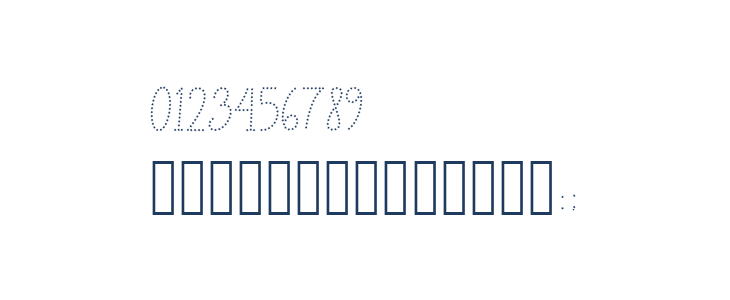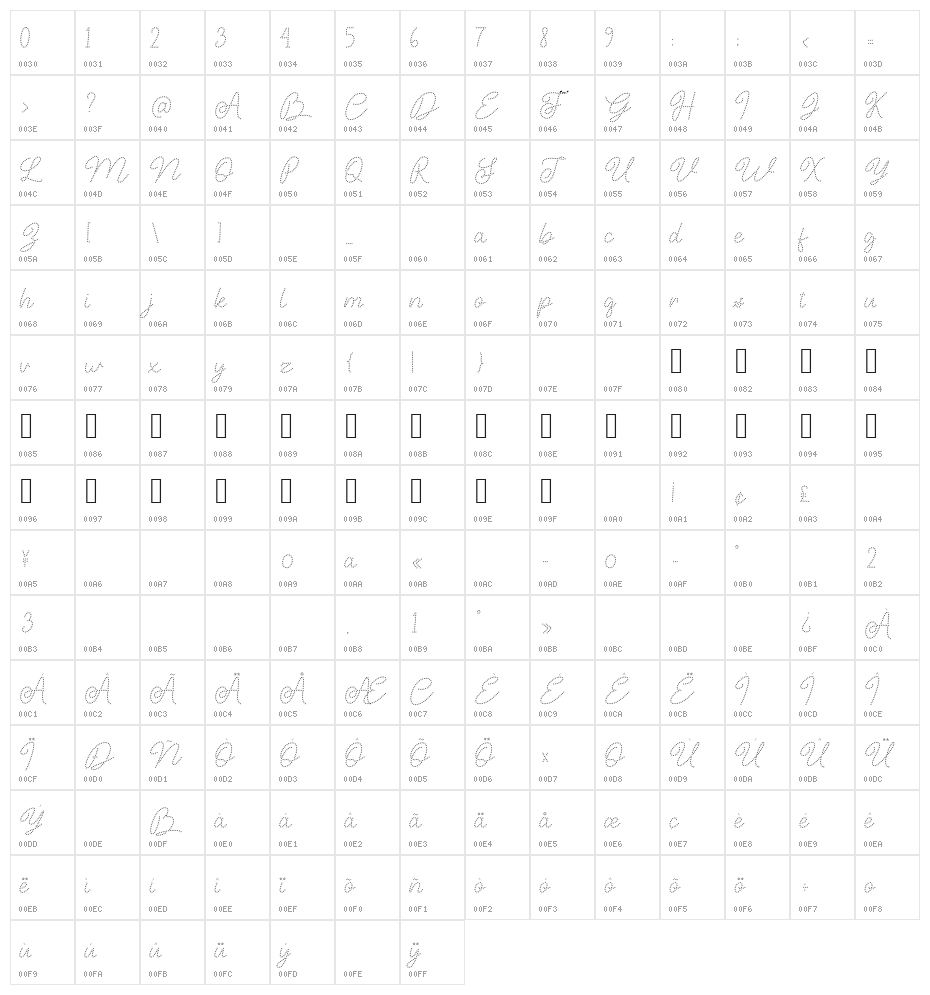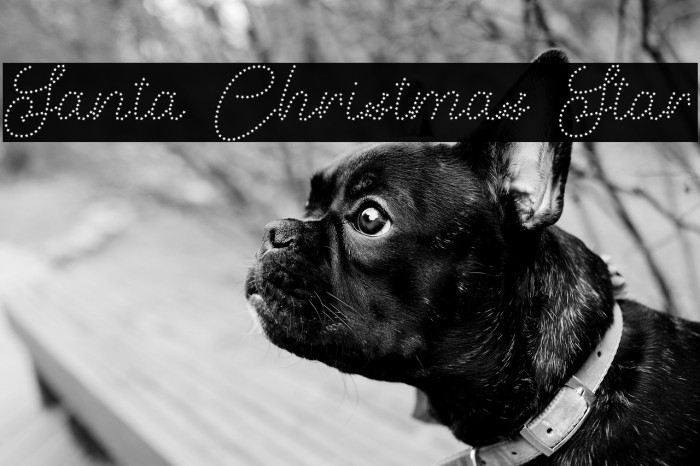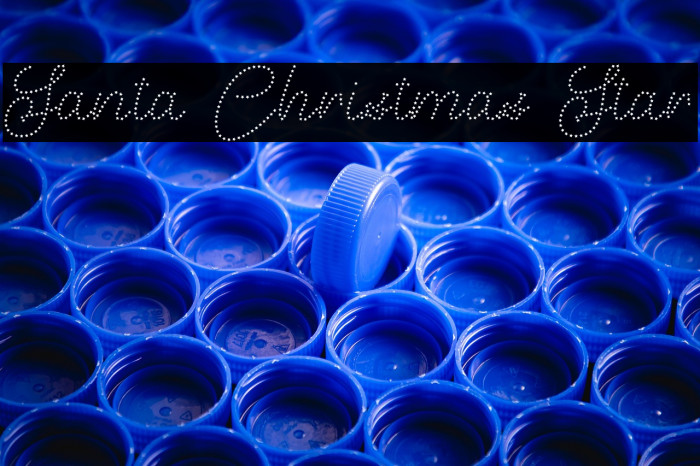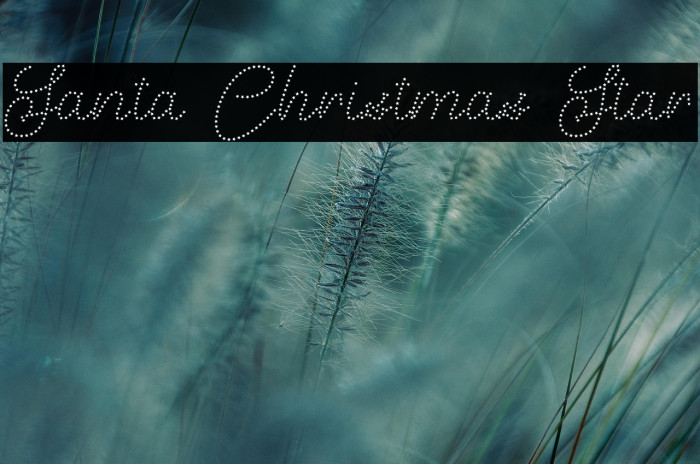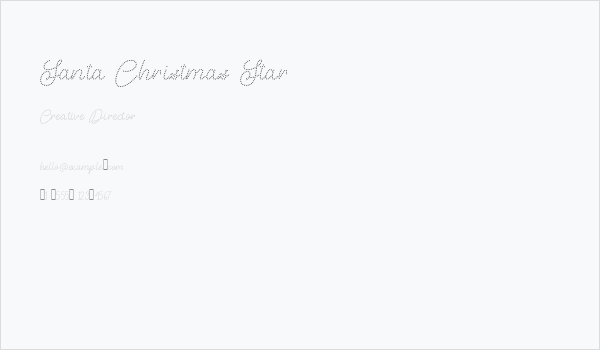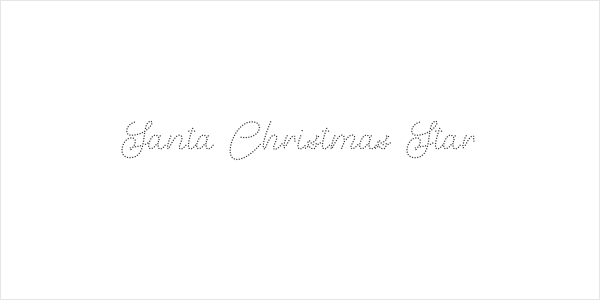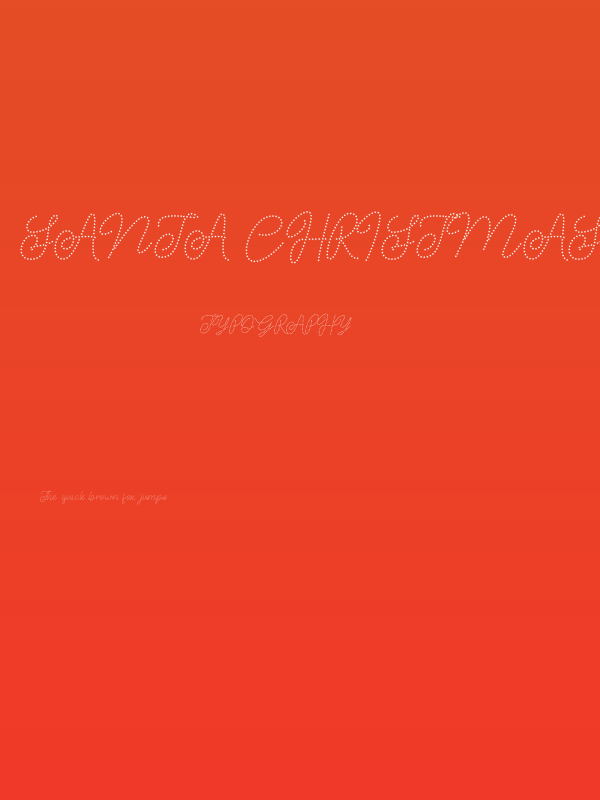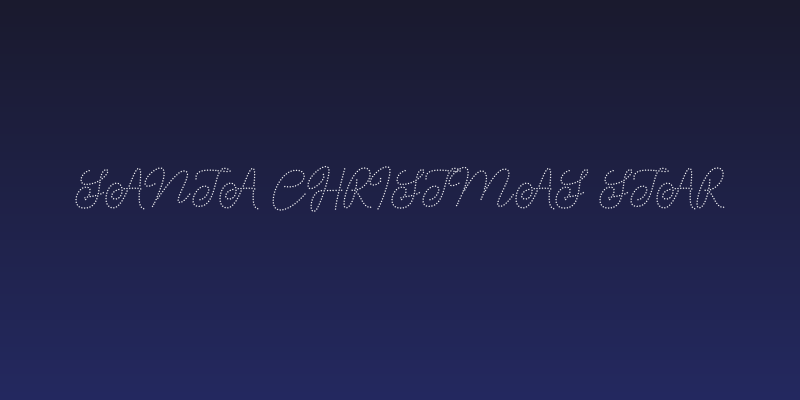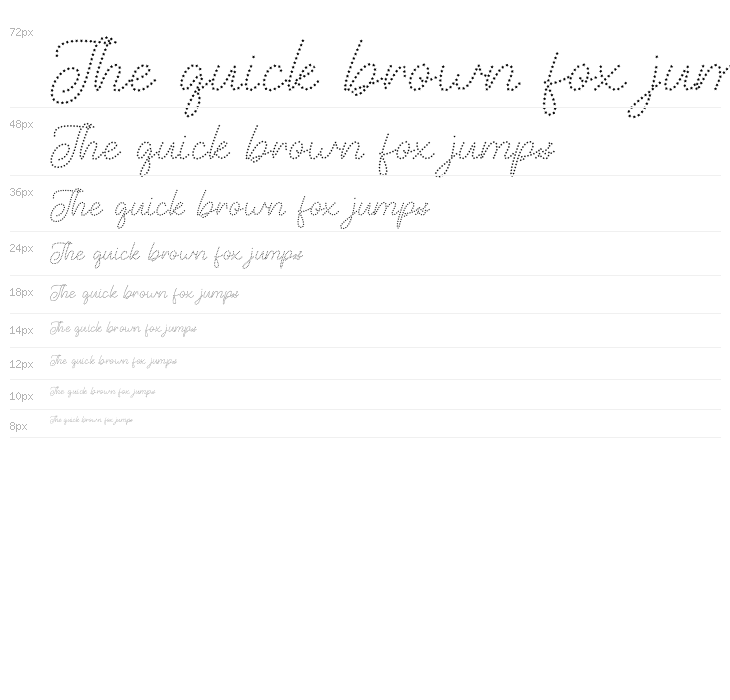
Santa Christmas Star Font
Santa Christmas Star Description
This font features a unique dotted script style, where each character is composed of small, evenly spaced dots that form elegant, flowing letters. The uppercase and lowercase letters maintain a consistent cursive form, giving the font a cohesive and harmonious appearance. The numbers follow the same dotted pattern, ensuring uniformity across all characters. The font's playful and whimsical nature makes it ideal for festive occasions, particularly those with a holiday theme. Its distinctive design captures attention while remaining legible, making it suitable for decorative purposes.
| Use Case | Headlines, Logos, Decorative text |
| Proposed Projects | Ideal for holiday cards, festive invitations, decorative posters, and playful branding projects. |